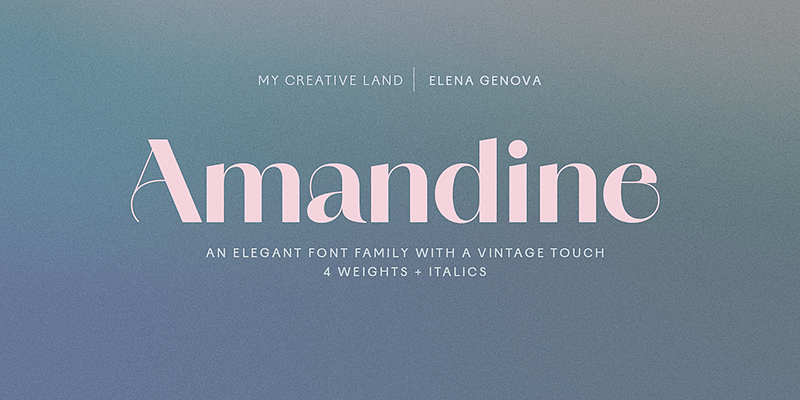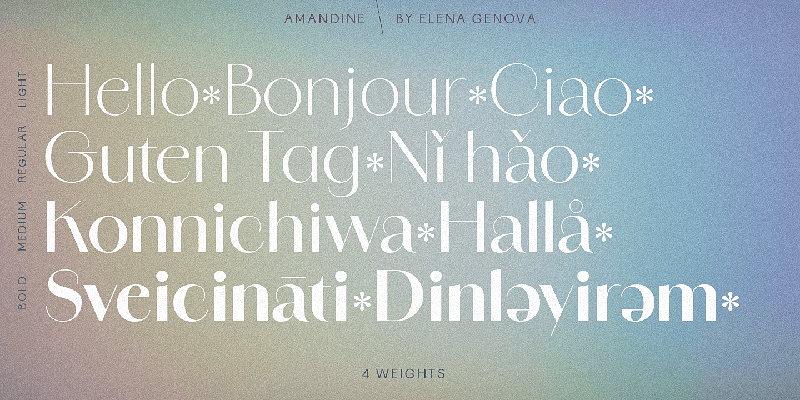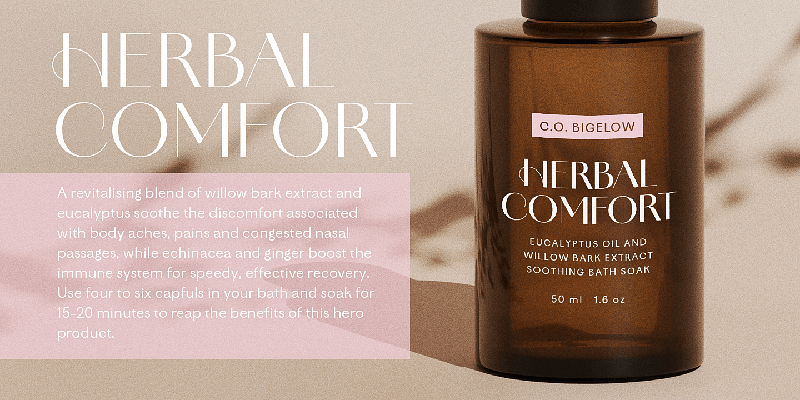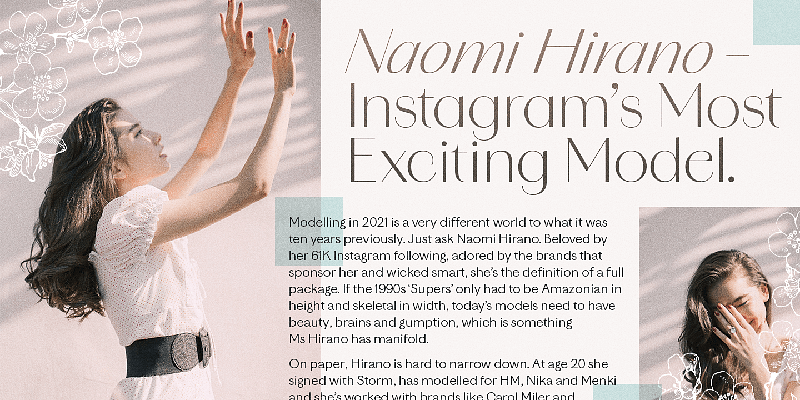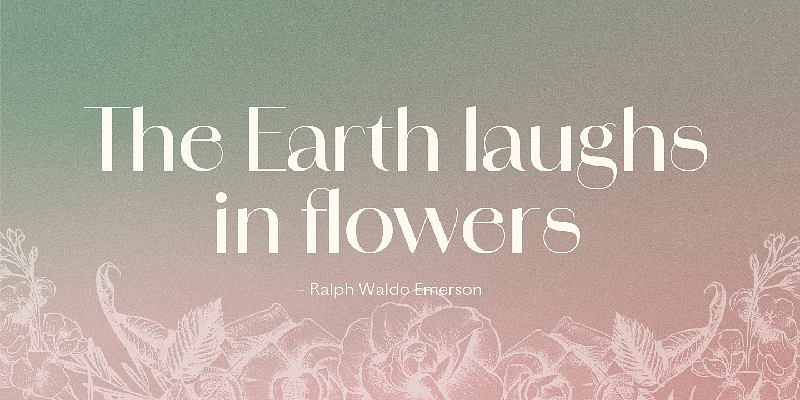
Amandine is a modern high-contrast sans family inspired by Didone forms, vintage typefaces, and calligraphic scripts. The typefaces share the same signature curves, but the italics are original and delightfully unexpected. Their utility is only enhanced with stylistic alternates, ligatures, and swashes, making each use a little less off-the-rack. Its elegant design is well suited for the design of luxury brands, magazines, book covers, wedding invitations and stationery, packaging, and more.
My Creative Land is home to the gorgeously handcrafted typefaces of Elena Genova. With an unwavering dedication to the art of letterforms, the faces transcend the ordinary and convey emotion, depth, and uniqueness in design. Each font family is carefully handcrafted and often draws direct inspiration from the beauty found in calligraphy and lettering. Discerning designers will know that My Creative Land has fonts ready to infuse a certain je ne sais quoi, amplifying their ideas above the rest.